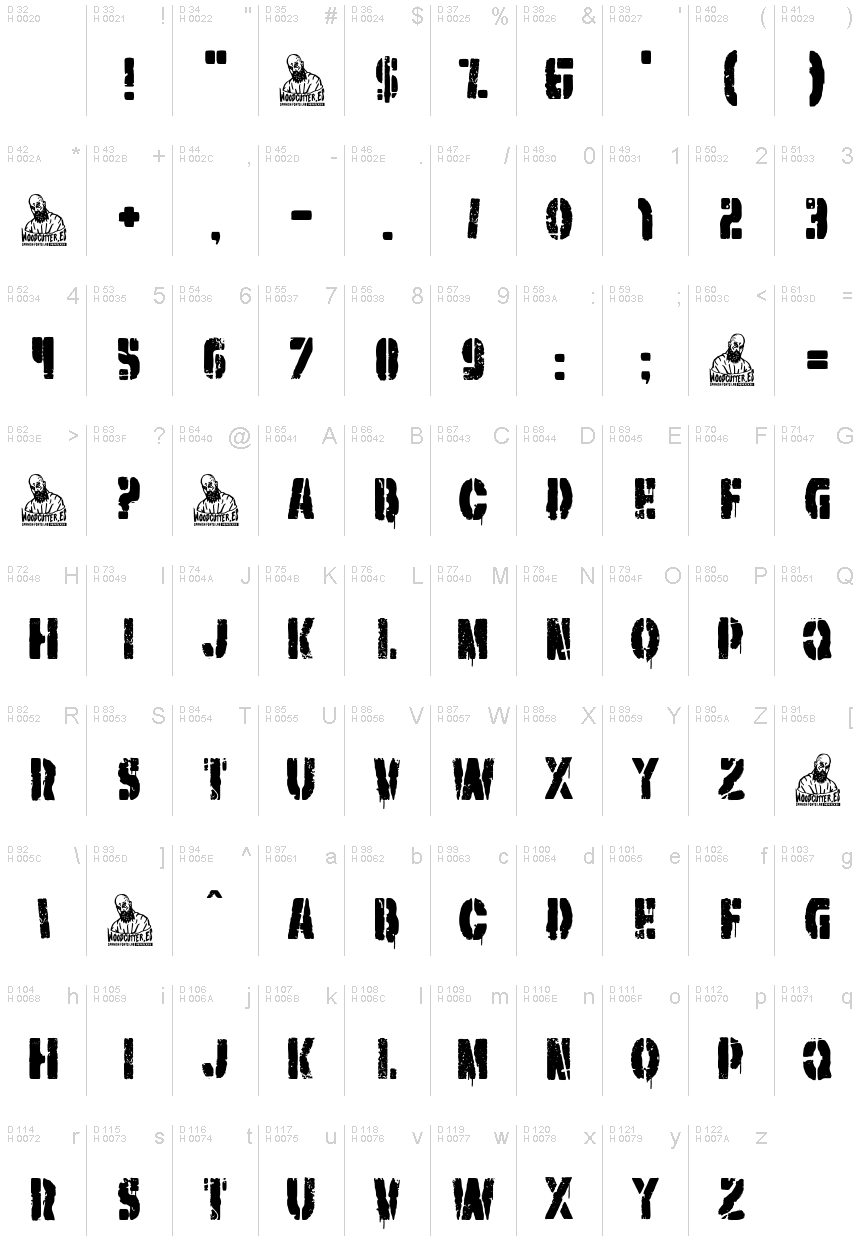
War Machine Stencil
War Machine Stencil font by Woodcutter is a bold, eye-catching display typeface that commands attention with its eroded, stencil style. Its condensed structure amplifies its daring aesthetic, making it perfect for edgy designs and striking graphics. The rugged appearance evokes a sense of toughness and industrial strength, ideal for projects seeking a raw, authentic vibe.
This unique font shines in urban-themed posters, military-style graphics, or any creative endeavor needing a gritty touch. As a free font option available for download, War Machine Stencil offers designers an accessible tool to make impactful statements. Embrace its robust character to add dynamism and boldness to your visual communication projects.